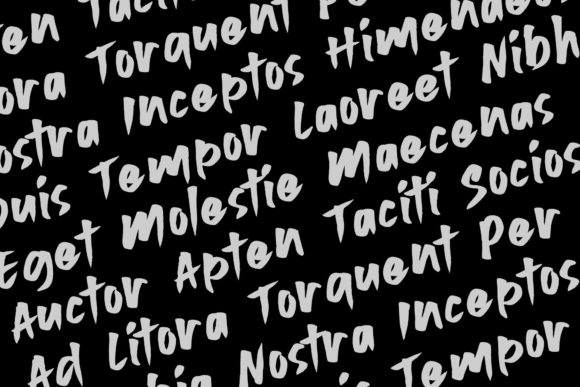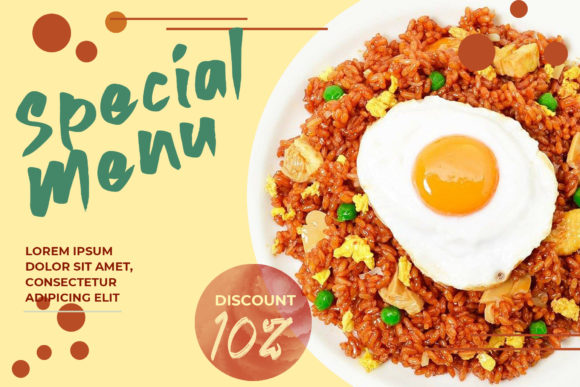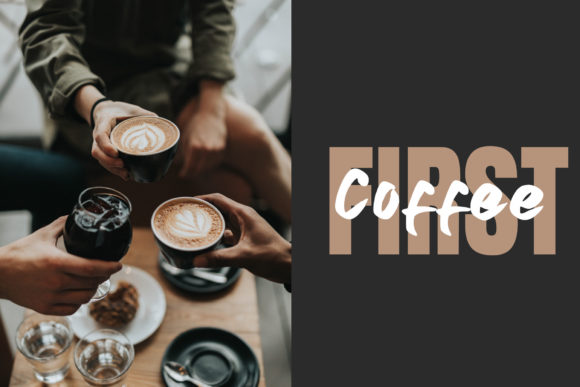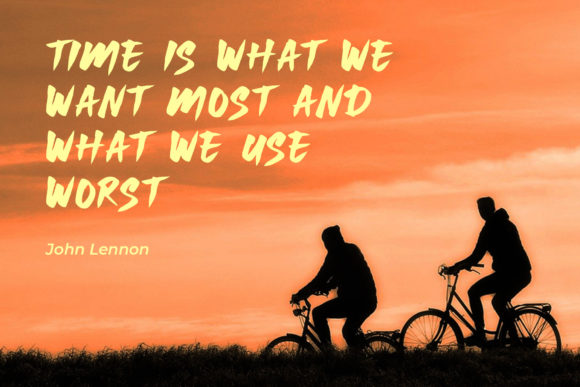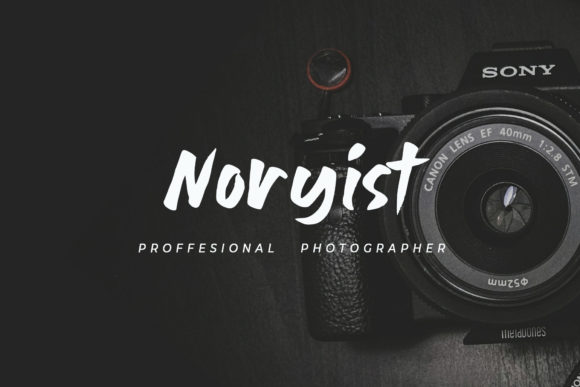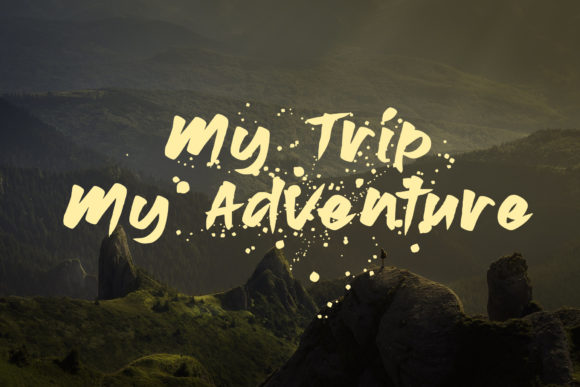
Eswold Font: The Cute and Trendy Display Font You Need
In the world of typography, fonts play a crucial role in making or breaking a design. A great font can elevate your creation from ordinary to extraordinary, while a dull one can make it fall flat. If you’re a designer, crafty enthusiast, or simply someone who loves to dabble in creative projects, you’re in luck because today we’re shining the spotlight on the Eswold font – a cute and trendy display font that’s sure to become a valuable asset in your font library.
The Eswold Font: A Versatile and Eye-Catching Addition
Eswold is a modern display font that’s perfect for a wide range of projects, from branding and advertising to crafting and DIY tutorials. Its unique blend of playfulness and sophistication makes it an incredibly versatile font that can be used in various contexts. Whether you’re designing a logo, creating a social media graphic, or working on a craft project, Eswold is sure to add a touch of personality and style to your work.
What Makes Eswold So Special?
So, what sets Eswold apart from other fonts out there? Here are just a few reasons why this font is an incredibly valuable asset to have in your font library:
- Cute and Trendy: Eswold has a distinctly modern and trendy vibe that’s sure to appeal to anyone who loves contemporary design. Its cute and playful style makes it perfect for projects that require a bit of whimsy and fun.
- Versatile: Eswold is a highly versatile font that can be used in a wide range of projects, from digital designs to print materials. Its flexibility makes it an excellent addition to any font library.
- Easy to Read: Despite its playful style, Eswold is surprisingly easy to read, even at smaller sizes. This makes it perfect for use in body text, headlines, and titles.
- Unique Character: Eswold has a unique character that’s sure to make your designs stand out from the crowd. Its distinctive style ensures that your work will be instantly recognizable and memorable.
How to Use Eswold in Your Designs
Now that we’ve covered what makes Eswold so special, let’s dive into some practical tips on how to use this amazing font in your designs:
- Pair it with Other Fonts: Eswold pairs beautifully with other fonts, especially sans-serif fonts like Arial, Helvetica, or Open Sans. Experiment with different combinations to find the perfect match for your project.
- Use it for Headlines and Titles: Eswold is perfect for use in headlines, titles, and other attention-grabbing elements. Its bold and playful style ensures that your text will stand out and grab the reader’s attention.
- Add Some Whimsy: Eswold is a great font to use when you want to add a bit of whimsy and fun to your designs. Try using it in craft tutorials, DIY projects, or social media graphics to add a playful touch.
- Experiment with Colors: Eswold looks great in a wide range of colors, from bright and bold to pastel and soft. Experiment with different color combinations to find the perfect match for your project.
In conclusion, Eswold is a cute and trendy display font that’s sure to become a valuable asset in your font library. Its unique blend of playfulness and sophistication makes it perfect for a wide range of projects, from branding and advertising to crafting and DIY tutorials. With its versatility, ease of use, and distinctive style, Eswold is a font that’s sure to elevate any creation and make it stand out from the crowd. So why not give Eswold a try today and see the difference it can make in your designs?
As a designer or crafter, you’re probably always on the lookout for new and exciting fonts to add to your arsenal. Here are a few tips to keep in mind when working with Eswold font:
- Experiment with Different Sizes: Eswold looks great in a wide range of sizes, from small and delicate to large and bold. Experiment with different sizes to find the perfect fit for your project.
- Don’t Be Afraid to Get Creative: Eswold is a font that’s meant to be used creatively. Don’t be afraid to experiment with different colors, textures, and effects to make your designs truly unique.
- Pair it with Images: Eswold pairs beautifully with images, especially illustrations and graphics. Try using it in combination with images to create stunning visual effects.
With its unique style, versatility, and ease of use, Eswold font is sure to become a favorite among designers and crafters. Whether you’re working on a professional project or simply dabbling in creative pursuits, Eswold is a font that’s sure to inspire and elevate your work.